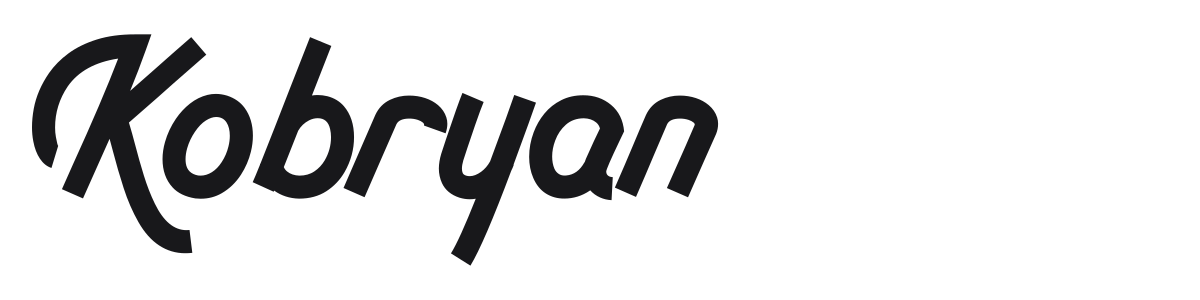
Kobryan
Kobryan is a bold casual italic script with heavy rounded strokes and a strong forward lean. The connected letters carry a handwritten looseness that feels energetic and approachable without being sloppy. It works well for logos, packaging, and anywhere that needs personality at a large size.